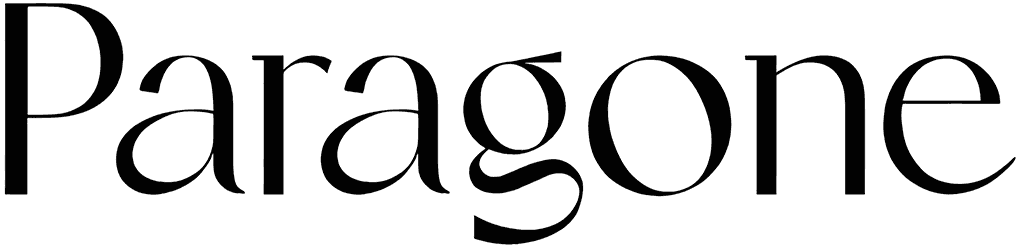
Paragone Font
You can never have enough logo fonts in your toolkit. So now that the opportunity has presented itself to download yet another stylish font like Paragone and make your dreams real, just go for it.
After all, there’s not too much simplicity and not so many decorative details used in this elegant font. So everything is just enough to make it your best shot at designing tasteful logos for photographers, authors, diet consultants, financial managers, and other similar businesses.